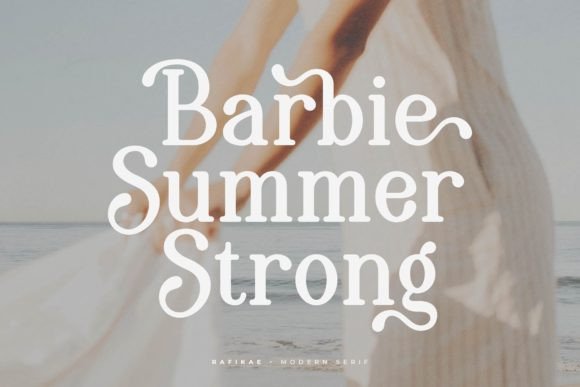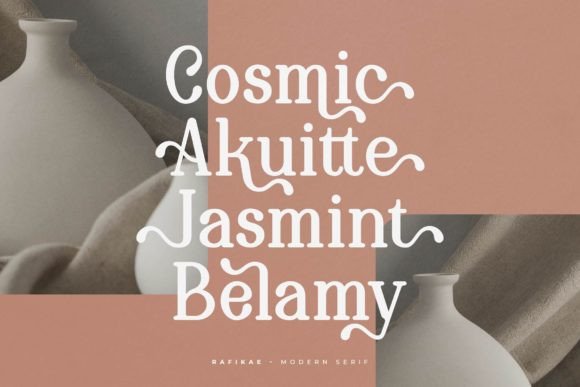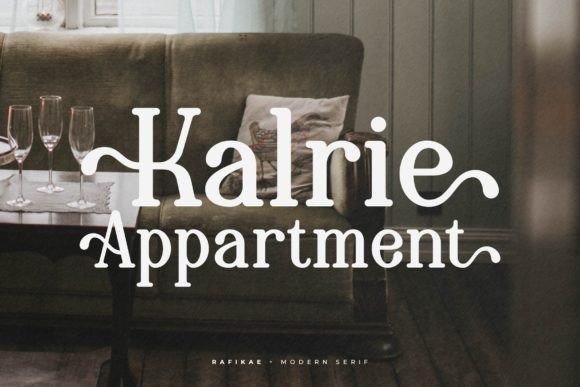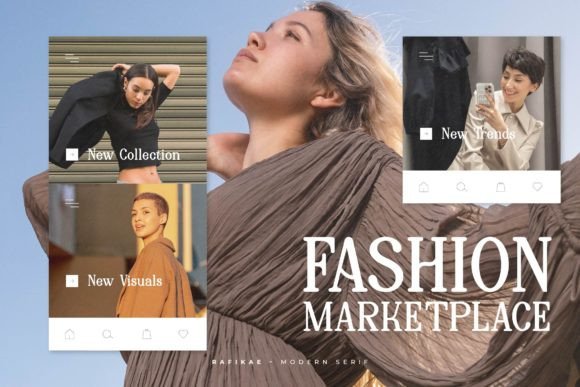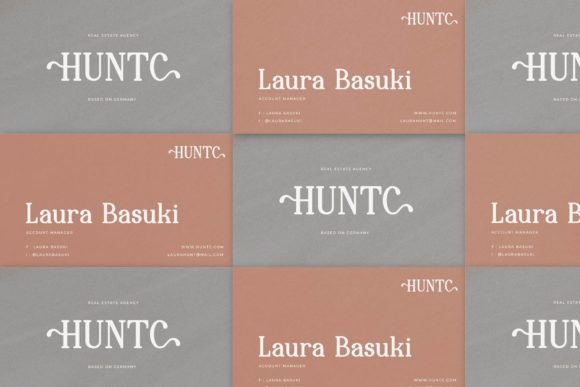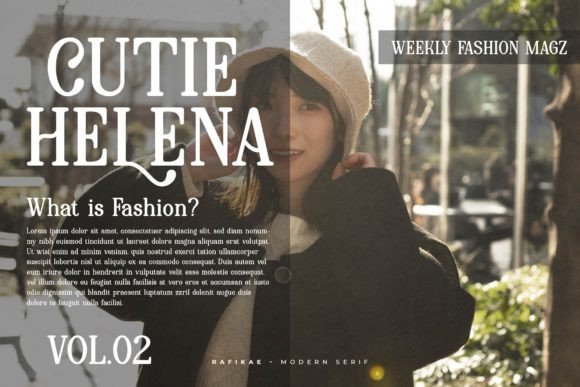
Introduction to Rafikae Font
Rafikae is a modern serif font that combines classic elegance with a clean, contemporary look.
Its sharp lines and stylish details make it perfect for adding a touch of sophistication to any design .
Key Features of Rafikae Font
Why Choose Rafikae Font?
Rafikae Font offers exceptional quality and versatility, making it a valuable addition to your design toolkit. Whether you’re creating for personal projects or commercial use, Rafikae Font delivers professional results.